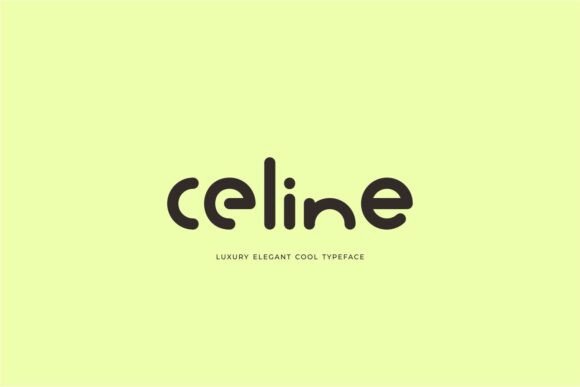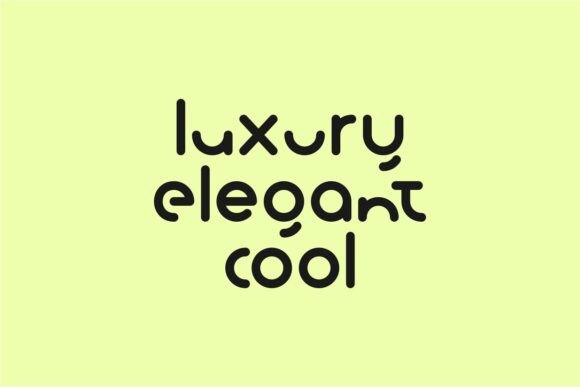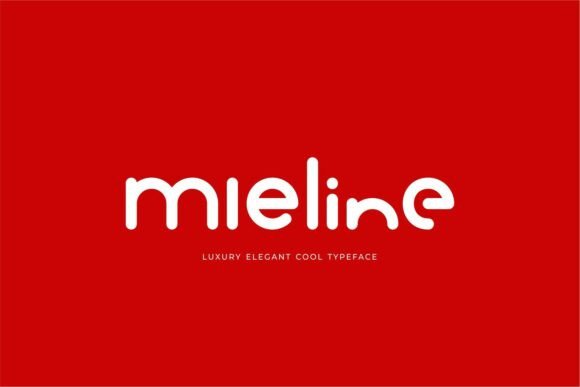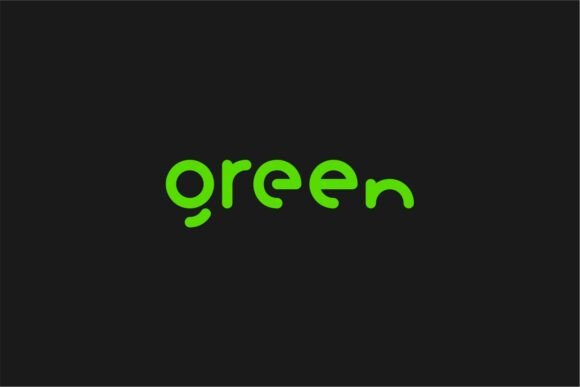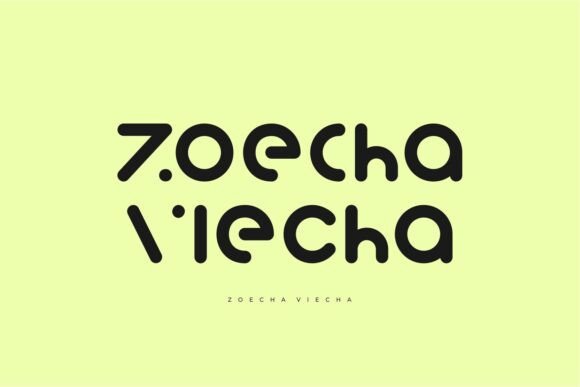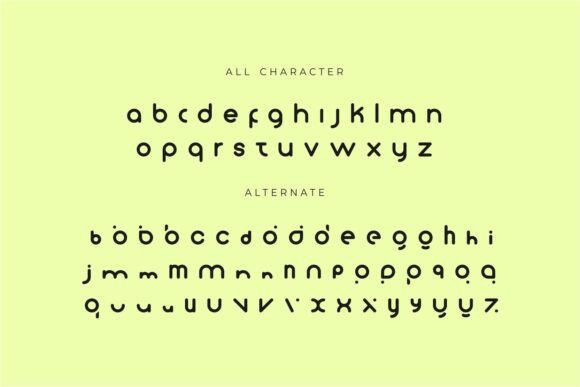
Introduction to Quip Font
Have you ever stared at a blank canvas, eager to bring a creative project to life, only to be halted by the perfect font eluding you? The search for the ideal design resource can be a daunting task, especially when you’re working with a tight deadline. But what if you stumbled upon a font that not only elevates your design but also adds a dash of personality to it?
Enter the Quip Font, a game-changing sans-serif font that’s about to become your new best friend. With its bold geometric curves, smooth terminals, and playful alternates, this font is a masterclass in balance and versatility. Whether you’re working on a branding project, designing a logo, or crafting an editorial piece, the Quip Font has got you covered.
Quip Font Key Features
- High-quality design resource suitable for creative projects, offering a unique and modern aesthetic.
- Quip Font features a transparent background, allowing for seamless integration with various design elements.
- Quip Font includes 6 styles, each with its own distinct character, providing versatility for creative projects.
Honest Review: Quip Font
As a designer, I’m always on the lookout for high-quality design resources to elevate my creative projects. Recently, I had the chance to try out the Quip Font, and I’m excited to share my honest review with you.
Here are some things that work well for me: ✨
- Clear and modern aesthetic: Quip Font has a clean and contemporary design that works well for a variety of creative projects.
- Transparent background: The transparent background option makes it easy to customize the font to fit any design style.
However, there are a few limitations I’ve noticed: ⚠️
- Limited font styles: While the Quip Font is clean and modern, it’s not as versatile as some other fonts on the market.
- No extended character set: If you need to use special characters or languages, you may find the Quip Font lacking.
Overall, I’m impressed with the Quip Font. It’s a great option for designers who want a clean and modern font without breaking the bank. Just be aware of its limitations, and it’s sure to be a valuable addition to your design resource library.
Quip Font is a versatile design resource that can be used in a variety of creative projects, including logos, business cards, and social media graphics. Its high-quality design and transparent background make it a popular choice for designers.